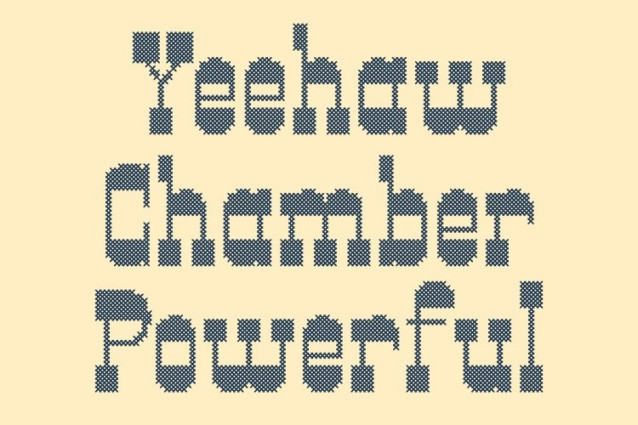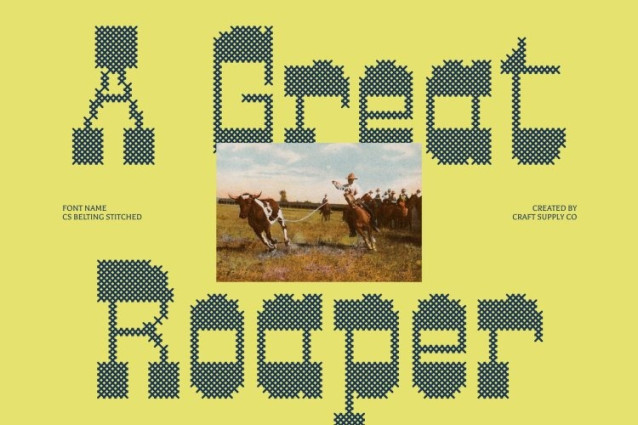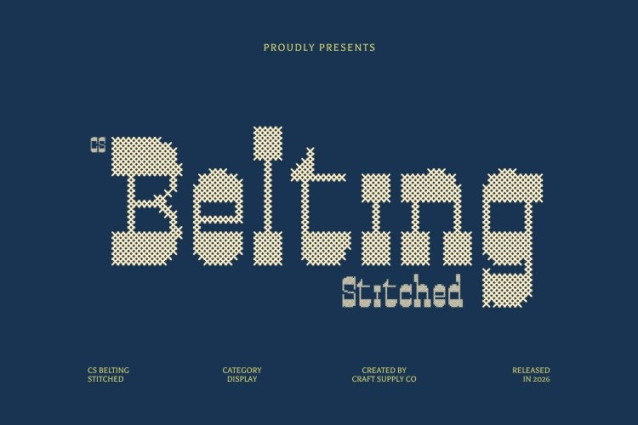
CS Belting Stitched Font – This is a bold western display font that channels the untamed spirit of the Wild West. Inspired by classic frontier signage and rugged cowboy culture. Enhanced with a stitched texture inspired by thread sewn or embroidered on fabric, this version adds a handcrafted dimension that reinforces its rustic charm and nostalgic appeal.
Slab Serifs with Embossed Stitch Detail
The defining feature of lies in its slab-like serifs and wide, commanding letterforms. A distinctive cross-shaped stitch pattern overlays each character, creating an embossed, fabric-like texture that enhances depth and tactile richness. This stitched detailing adds a classic, nostalgic, relaxed, and warm impression while preserving the bold strength and readability of the western-style structure.
Rugged Style with Cowboy Grit
This font captures the raw energy of frontier life through its sturdy proportions and confident stance. The font reflects the grit, independence, and authenticity associated with cowboy culture, while the stitched texture introduces a handcrafted nuance that feels both rugged and personal. The result is a typeface that feels adventurous, masculine, and visually distinctive.
Perfect for Posters, Branding, and Vintage Themes
This font excels in posters, logos, branding, packaging, and design projects. Its western flair makes it especially suitable for rodeo events, outdoor brands, whiskey labels, apparel graphics, movie titles, and heritage-inspired visuals.